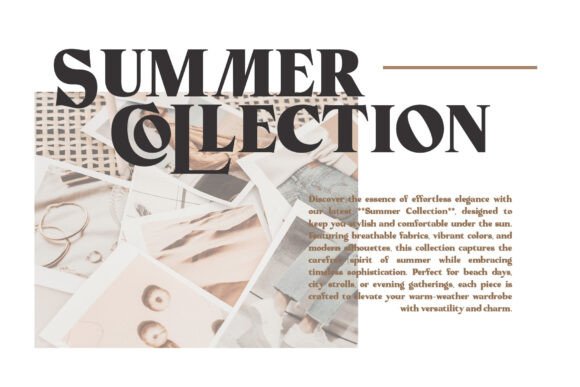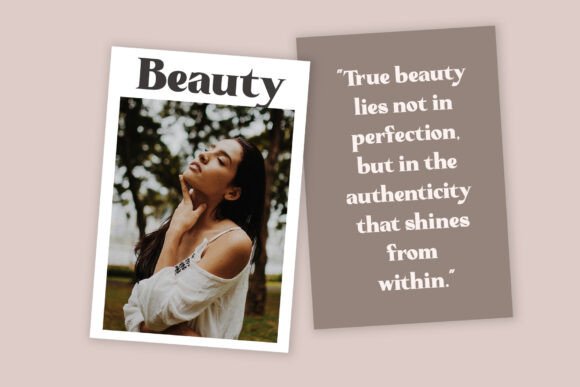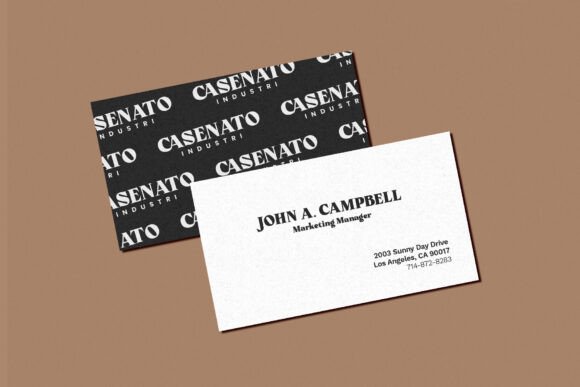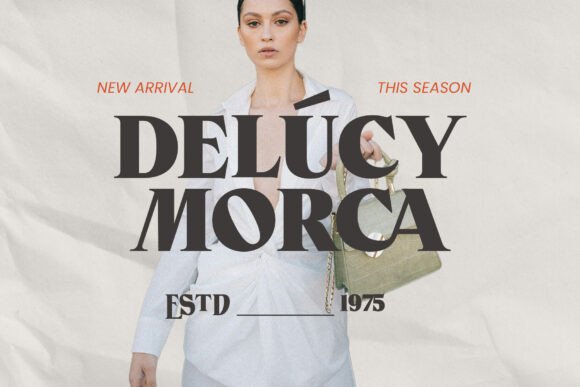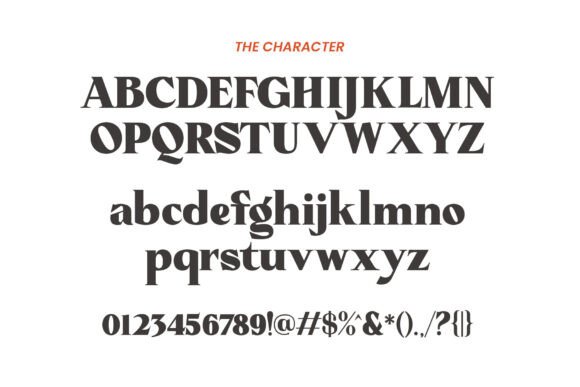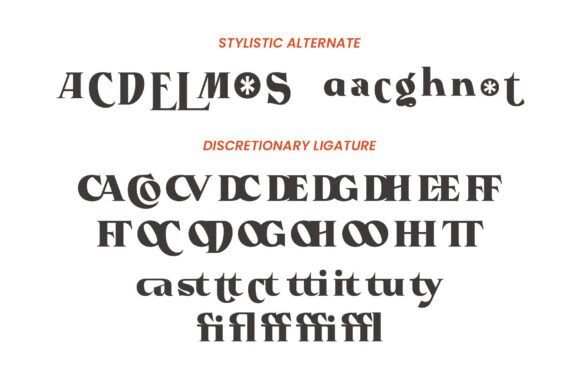
Introducing Coligra Font: A Stylish and Modern Typeface
In the world of typography, fonts play a crucial role in conveying messages, expressing emotions, and creating visual identities. For designers and crafters, finding the perfect font can be a daunting task. However, if you’re looking for a stylish and modern typeface that can elevate your designs, look no further than Coligra Font. In this article, we’ll explore the features, benefits, and uses of Coligra Font, and why it’s a must-have for any designer or crafter.
The Unique Characteristics of Coligra Font
Coligra Font is a stylish typeface that boasts extreme cuts, sharp angles, and interactive straps. Its unique design makes it stand out from other fonts, giving it a distinctive personality that’s sure to grab attention. The characters in Coligra Font seem solid, with different styles and maximum personality spread across each replacement letter. This means that you can use Coligra Font to create a wide range of designs, from bold and edgy to elegant and sophisticated.
The Benefits of Using Coligra Font
So, what makes Coligra Font so special? Here are just a few benefits of using this amazing typeface:
- Versatility: Coligra Font is suitable for a wide range of design projects, including logos, emblems, magazines, quotes, and more. Its versatility makes it a great addition to any designer’s toolkit.
- Modern and Attractive: The separation of bold characters and standards that are considered binding creates a type that is solid, modern, and attractive. This makes Coligra Font perfect for designers who want to create modern and eye-catching designs.
- Personality: Coligra Font has a unique personality that’s sure to shine through in your designs. Its bold and edgy style makes it perfect for designers who want to create designs that stand out from the crowd.
Uses of Coligra Font
So, what can you use Coligra Font for? Here are just a few ideas to get you started:
- Logos and Branding: Coligra Font is perfect for creating bold and eye-catching logos that will help your brand stand out.
- Magazines and Editorials: Use Coligra Font to add a touch of modernity and sophistication to your magazine or editorial design.
- Quotes and Posters: Coligra Font is great for creating inspirational quotes and posters that will grab attention and inspire your audience.
- Web Design: Use Coligra Font to create modern and stylish web designs that will elevate your online presence.
Why Designers and Crafters Love Coligra Font
So, why do designers and crafters love Coligra Font? Here are just a few reasons:
- High-Quality Design: Coligra Font is designed with high-quality and precision, ensuring that your designs look professional and polished.
- Unique Style: Coligra Font has a unique style that’s sure to add a touch of personality to your designs.
In conclusion, Coligra Font is a stylish and modern typeface that’s perfect for designers and crafters who want to elevate their designs. With its unique characteristics, versatility, and personality, Coligra Font is a must-have for any designer or crafter. Whether you’re creating logos, magazines, quotes, or web designs, Coligra Font is sure to help you create stunning and eye-catching designs that will leave a lasting impression.